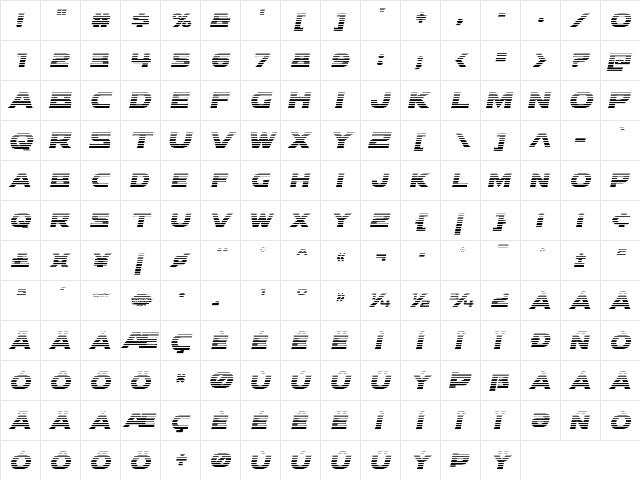
Modi Thorson Gradient Italic Italic
Design Context for Modi Thorson Gradient Italic Typeface
Modi Thorson Gradient Italic is a composed and adaptable typeface that performs quietly and consistently across a wide range of design contexts. The dynamic lean of this cut emphasises speed and emphasis in any layout.
Pro Tip: Use Modi Thorson Gradient Italic for emphasis, pull quotes, and subheadings where its slanted energy can add rhythm to the layout.